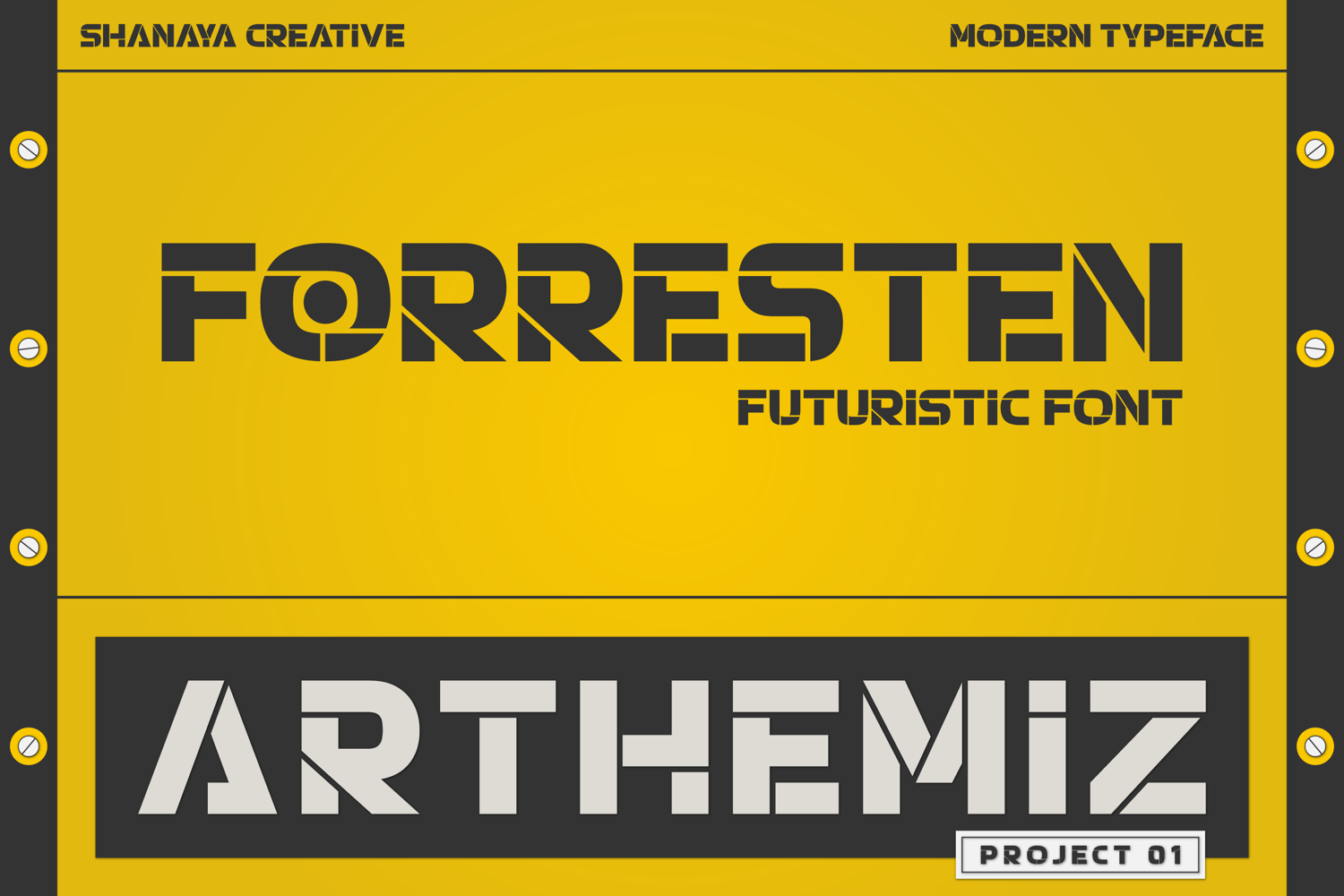
Forresten Futuristic Display Font
Forresten
Forresten – Futuristic Display Font
Forresten is a bold futuristic display font built with sharp geometric forms and industrial precision. Perfect for sci-fi titles, tech branding, and modern design projects that demand a strong, cutting-edge look.
Perfect for logos, gaming titles, tech branding, or cinematic posters, this font brings a sleek mechanical feel to your designs. Every letter is crafted with precision — creating a balance between power, innovation, and style.
Perfect for: sci-fi projects, esports logos, tech startups, product packaging, movie titles, and modern branding.
Make your project look sharp, futuristic, and unforgettable with Forresten.